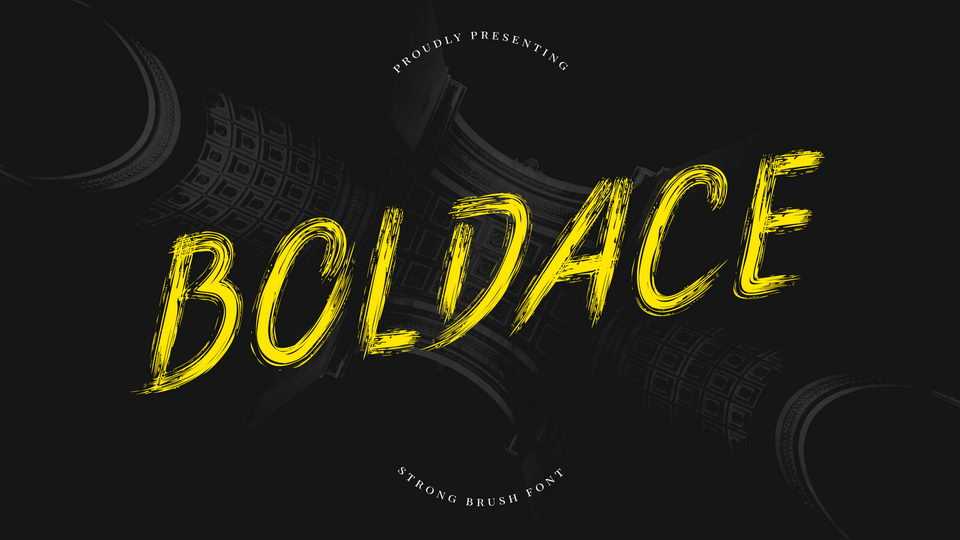
Boldace Brush Font › Fontesk – Download Grátis
Download Boldace font, a strong hand drawn brush typeface made with natural touch. Boldace would be perfect for posters, packaging, advertising, headlines, branding, signage and anything where you want that urban look and feel.
Designer: Namara Creative Studio